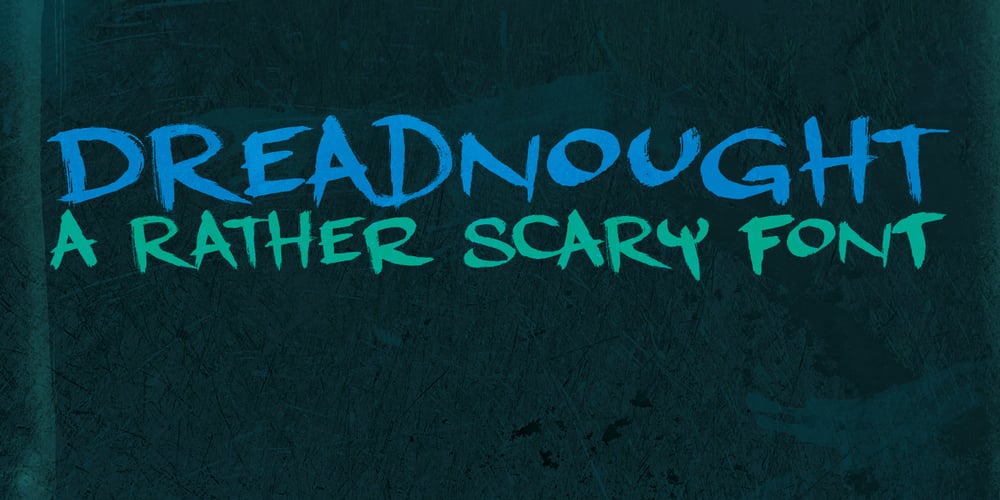
Dreadnought Font Family was designed by David Kerkhoff and published by Hanoded. Dreadnought contains 1 styles and family package options. With Dreadnought I go back to my roots: one of my very first fonts was a scary brush typeface called Face Your Fears – a very popular typeface with horror lovers, thrill seekers and gangsta rappers. Dreadnought was created using a stiff brush and some very high quality paint on textured paper. The result is a lively, scary and very legible font. Use it for your movie, book or album: you won’t be disappointed!